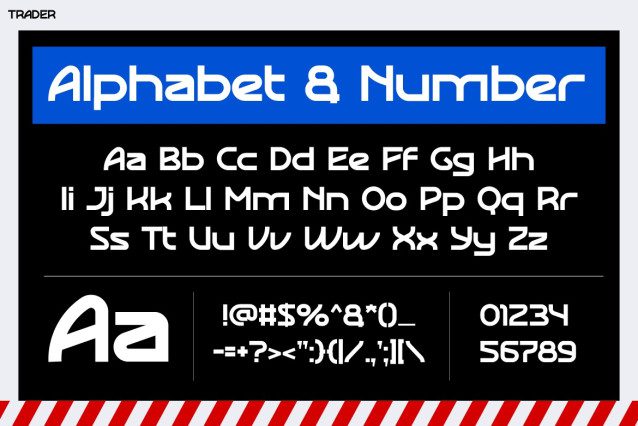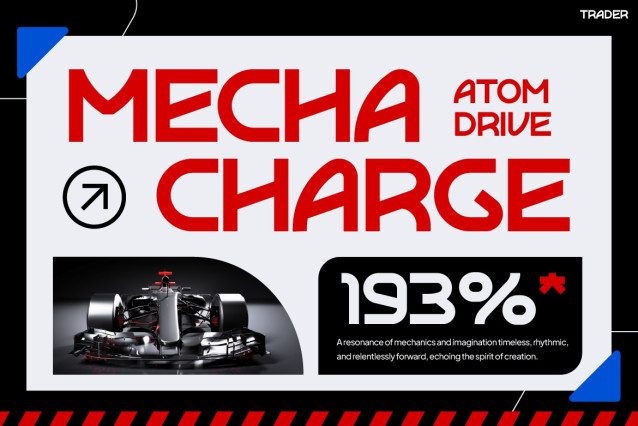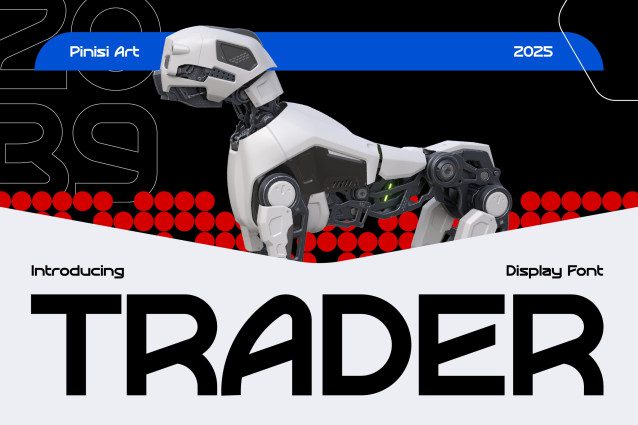
Trader Font is a sleek, forward-thinking typeface designed to bring a next-generation feel to any project. It blends geometric precision with smooth curves, creating an aesthetic that feels bold yet fluid. Moreover, its dynamic rhythm and futuristic energy make it instantly eye-catching. Each character is carefully built to show motion, balance, and innovation—perfect for creators who value both style and function.
In addition, this font harmonizes modern minimalism with advanced technology. It looks stunning on both screens and print materials. Furthermore, it delivers perfect readability at any scale, making it ideal for futuristic branding, digital displays, or modern interfaces. Its sci-fi influence captures the essence of progress, speed, and intelligent design. Therefore, TRADER is more than a typeface—it’s a visual identity that embodies the spirit of the future.
Futuristic Font TRADER is perfect for creatives who dare to think ahead. It fits branding for tech companies, esports teams, and AI startups. Moreover, it works beautifully in posters, gaming covers, web design, and cinematic titles. Each letter’s sleek form enhances layouts that demand a modern and professional tone.
Besides that, it’s a smart choice for those who want to communicate innovation with clarity. Its geometric foundation ensures balance, while its futuristic tone adds excitement and power. Hence, TRADER is a great match for designers, developers, and visual storytellers who seek to elevate their work with a strong, confident typeface.
In a world powered by progress, Futuristic Font TRADER helps your ideas stand apart. Its structure radiates strength and creativity, while its futuristic form adds a unique identity to every project. Therefore, if you’re ready to move your visuals forward, this font is your key. Don’t wait—download TRADER today and start designing with the power of tomorrow.